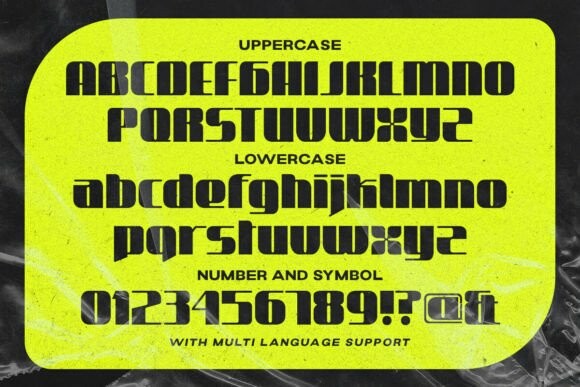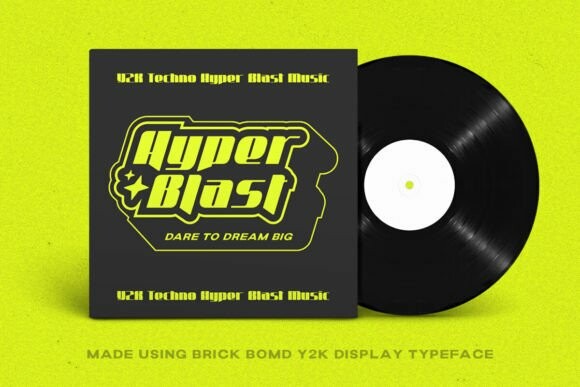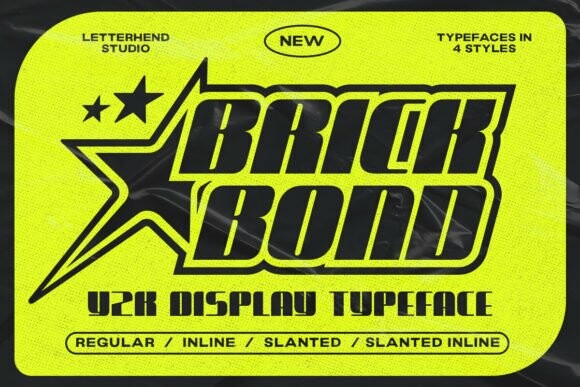
Brick Bond Font
Designer: letterhend
Brick Bond Font, a Y2K font with a futuristic touch that makes your designs shine. It comes with an outline and slant version. Its bold shape draws attention to titles, headlines, and key elements, ensuring your work is noticed.